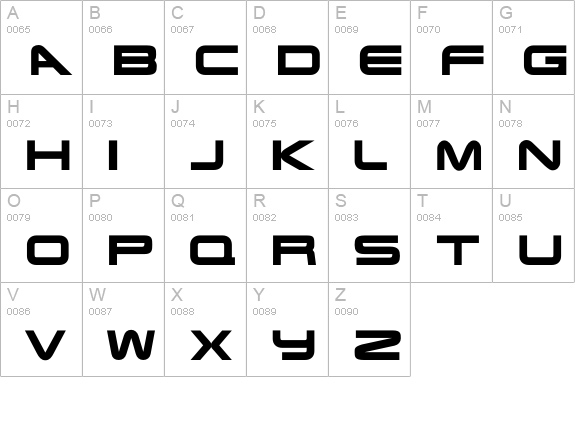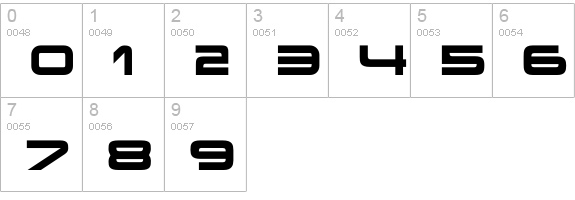
Terminator Real NFI font is a stunning display typeface that exudes power and futuristic vibes. Its bold and angular letterforms are inspired by the iconic Terminator movie franchise, making it the perfect choice for all your sci-fi and technological design projects. This font is not only visually striking but also incredibly versatile. Whether you're creating a poster for a movie marathon, designing a logo for a cutting-edge tech company, or crafting a headline for a magazine cover, Terminator Real NFI font will add a touch of sophistication and edge to your creations. One of the best things about Terminator Real NFI font is that it is free. That's right, you can download this incredible typeface without spending a dime. It's freely available for personal and commercial use, making it accessible to designers, artists, and enthusiasts alike. To get your hands on this must-have font, simply head over to FontsMarket.com. There, you'll find a vast collection of fonts, including Terminator Real NFI, waiting to be discovered. With just a few clicks, you can start incorporating this powerful typeface into your designs and take them to the next level. Don't miss out on the opportunity to enhance your projects with the free Terminator Real NFI font. Download it today and let your creativity soar!